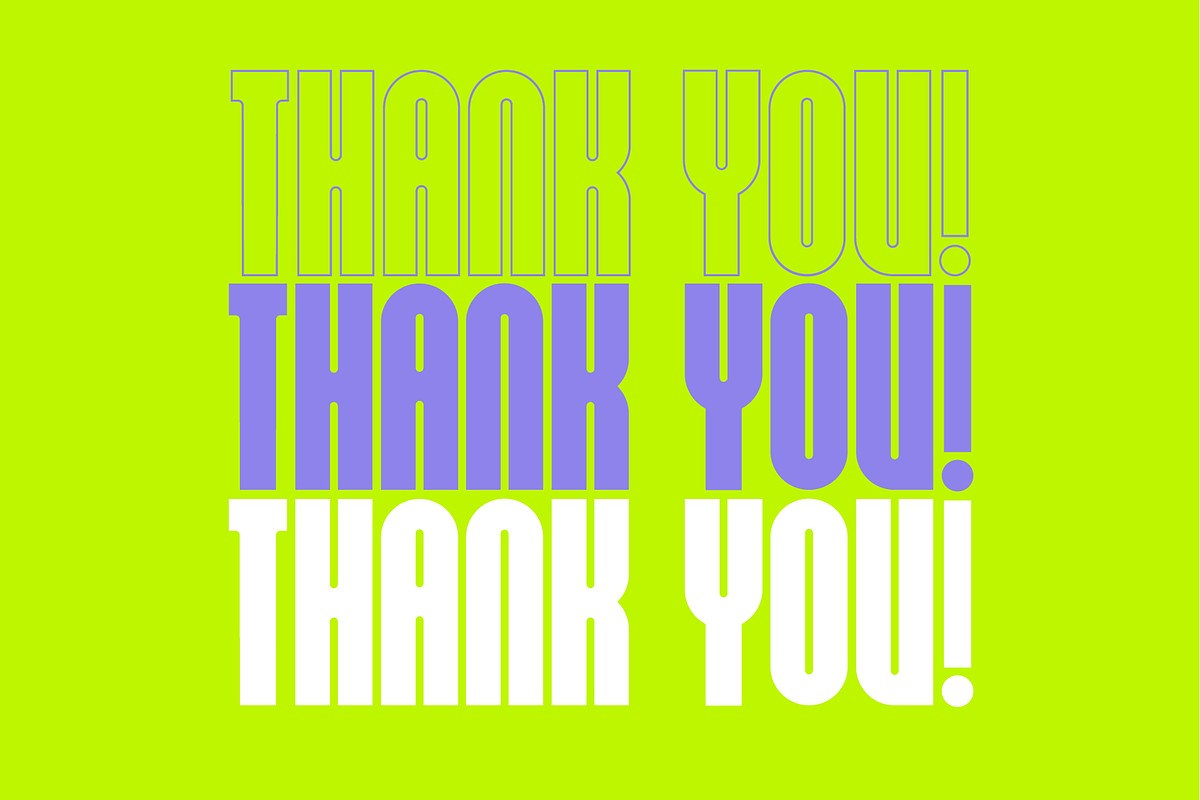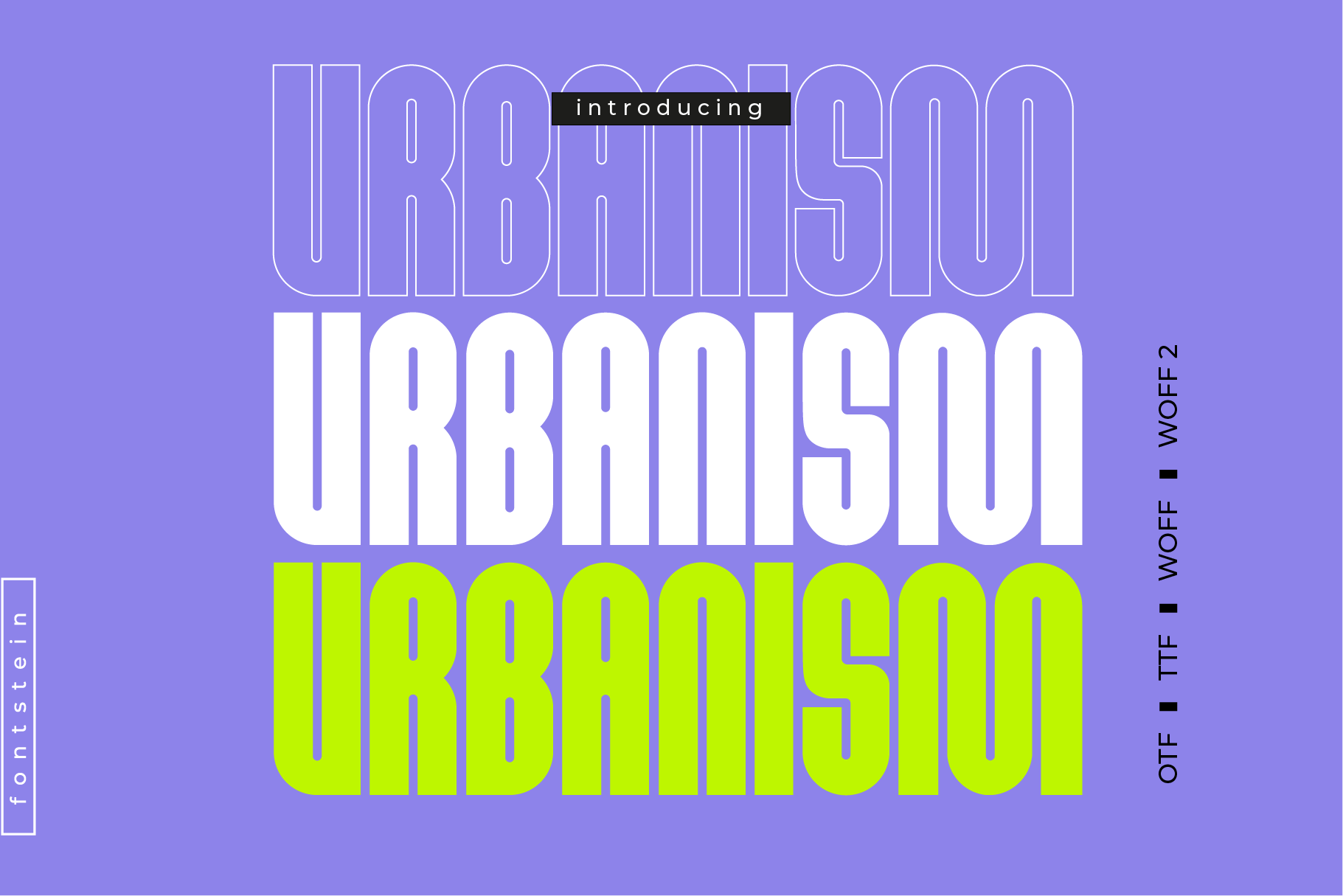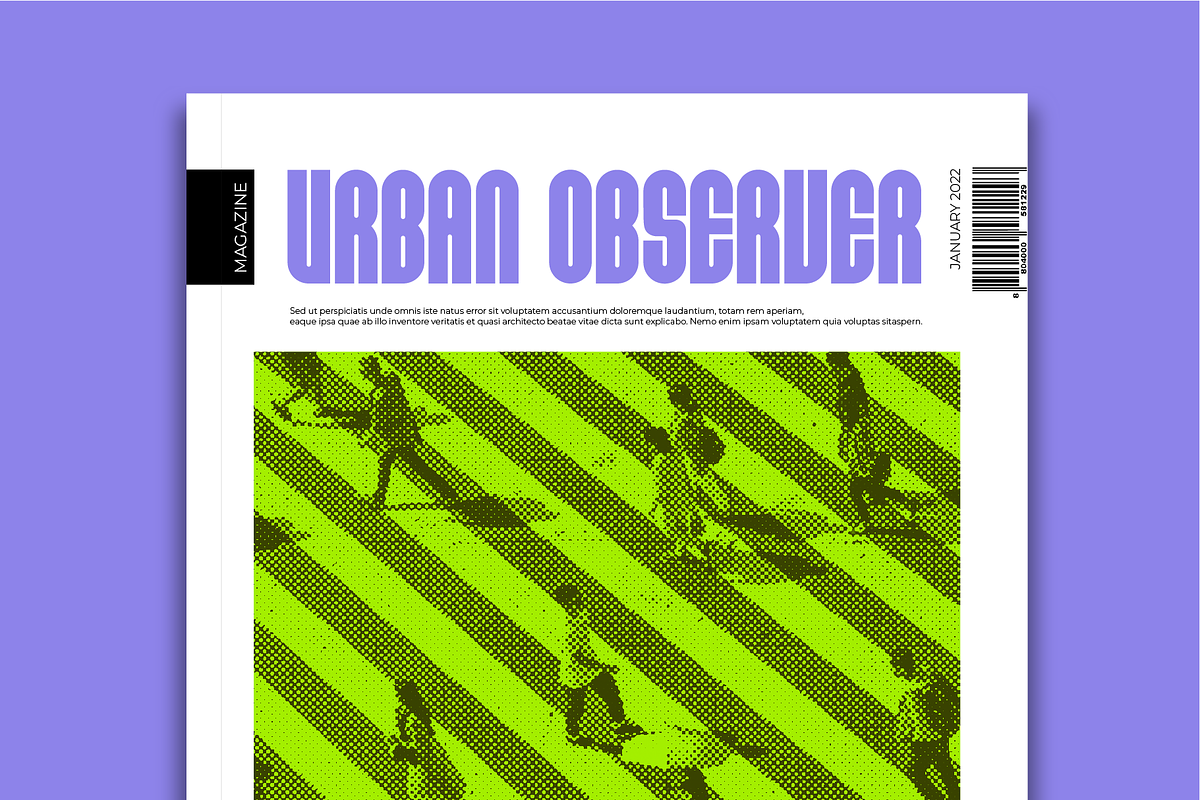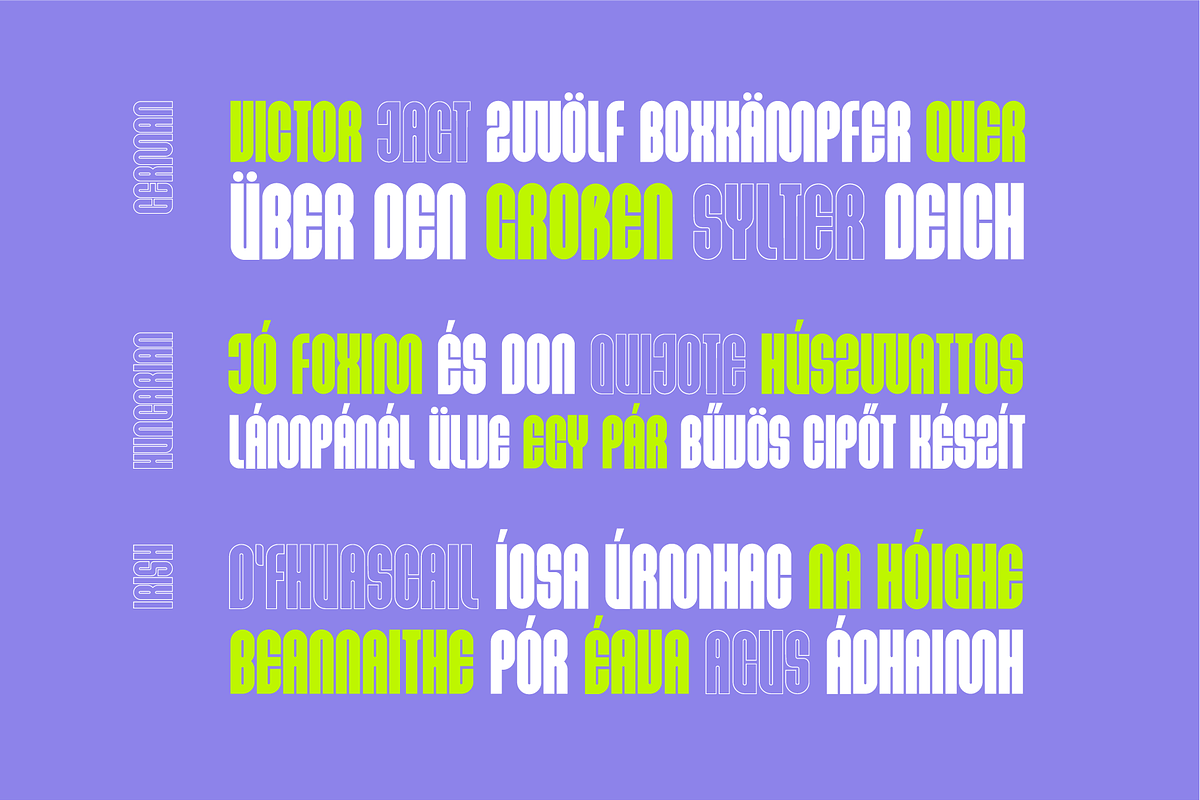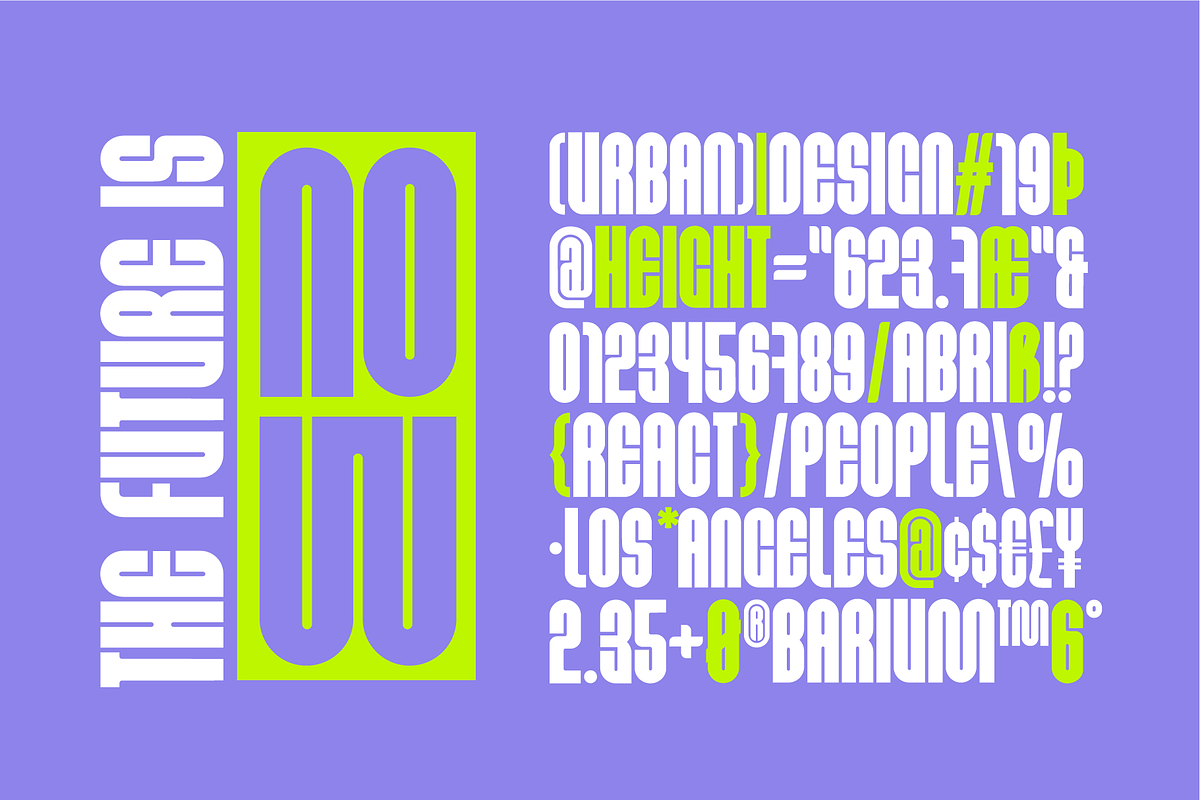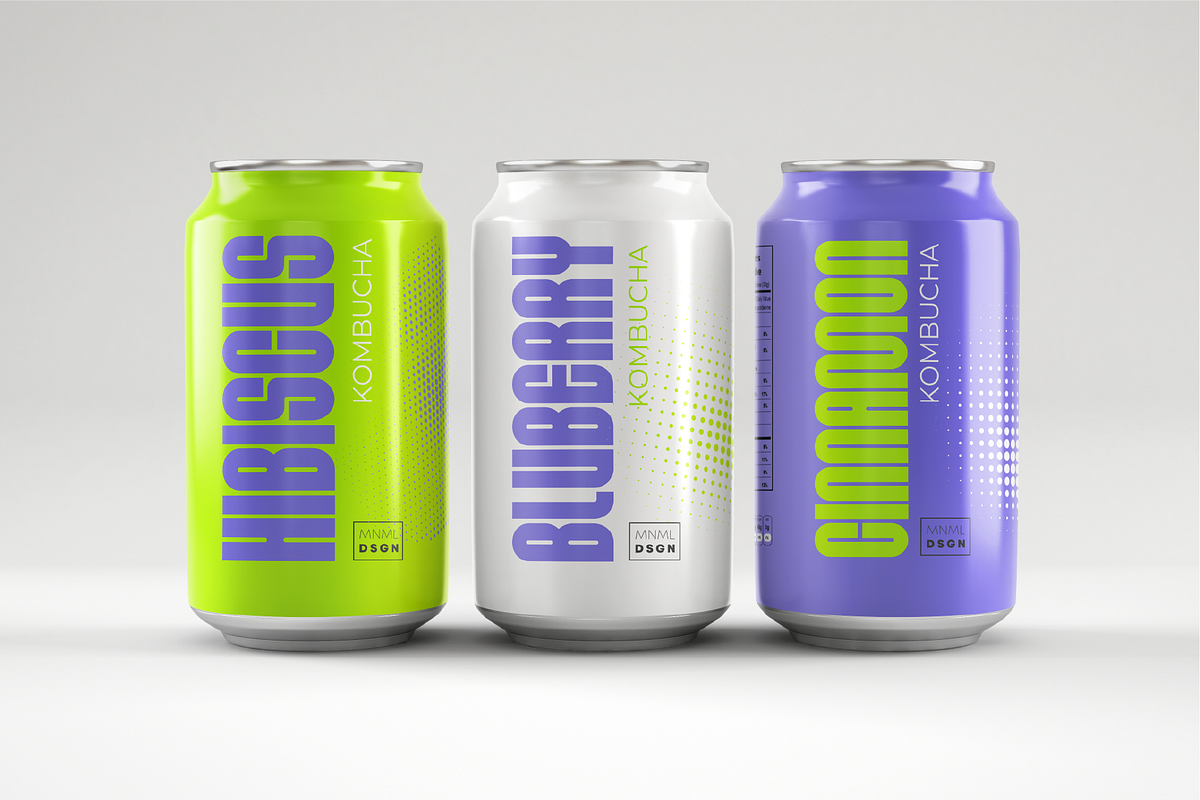
URBANISM | Display font + Outline
Urbanism is created for headlines that would look confident and large, but at the same time friendly. The font has only capital letters. It is ideal for headlines, signage, contemporary branding, and vibrant designs that require an attractive title.
Urbanism has massive language support - it includes basic Latin characters, western European, central European, southeastern European. If you want to test your language, please - type something in the test box below preview :)